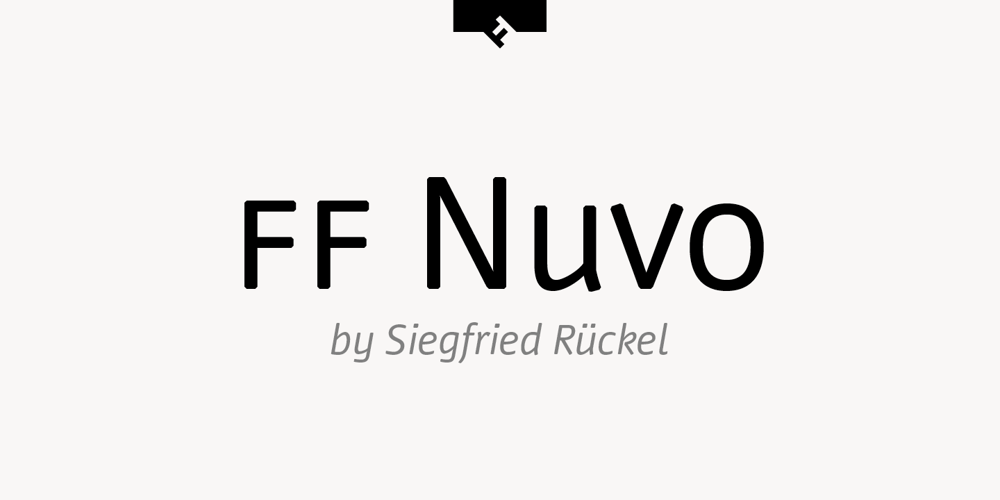
FF Nuvo
FF Nuvo Font Family was designed by Siegfried Rückel and published by FontFont. FF Nuvo contains 10 styles and family package options. German type designer Siegfried Rückel created this sans FontFont in 2008. The family has 10 weights, ranging from Regular to Black (including italics) and is ideally suited for advertising and packaging, festive occasions, logo, branding and creative industries as well as web and screen design. FF Nuvo provides advanced typographical support with features such as ligatures, small capitals, alternate characters, case-sensitive forms, fractions, and super- and subscript characters. It comes with a complete range of figure set options – oldstyle and lining figures, each in tabular and proportional widths. This FontFont is a member of the FF Nuvo super family, which also includes FF Nuvo Mono.”